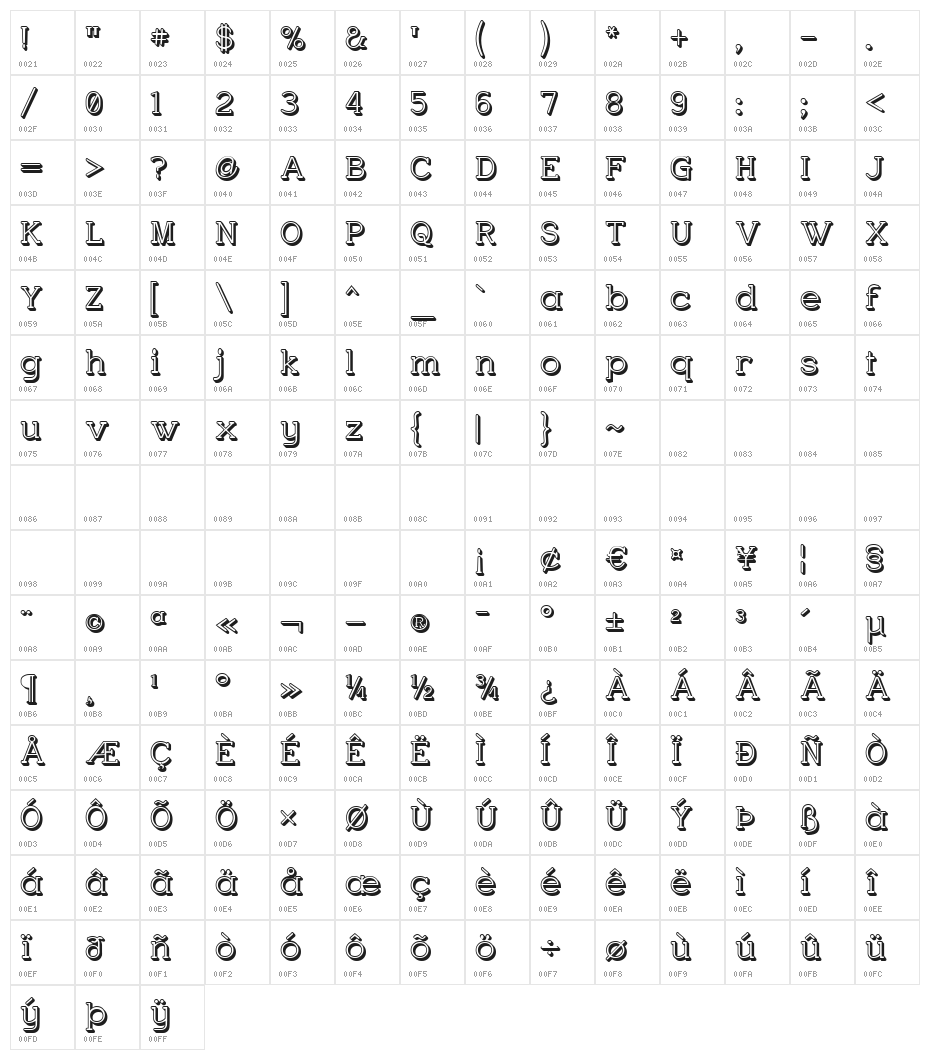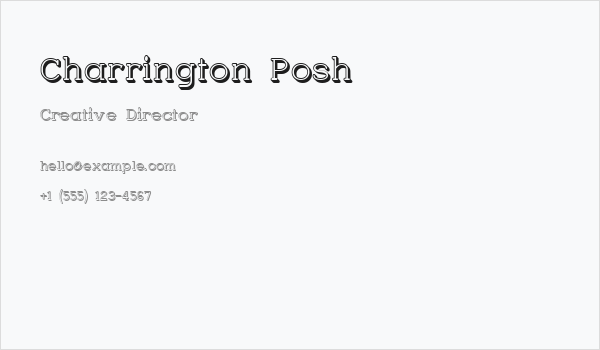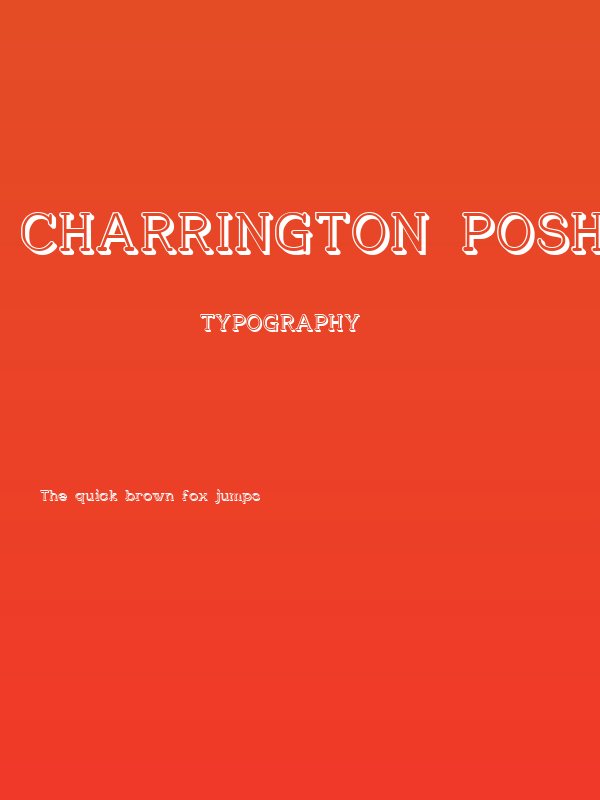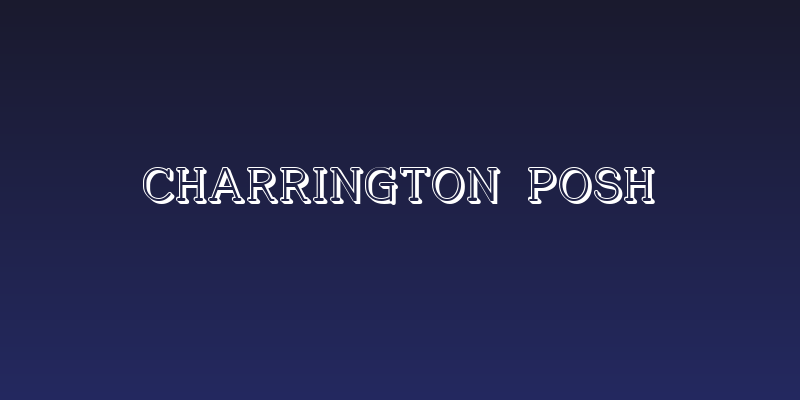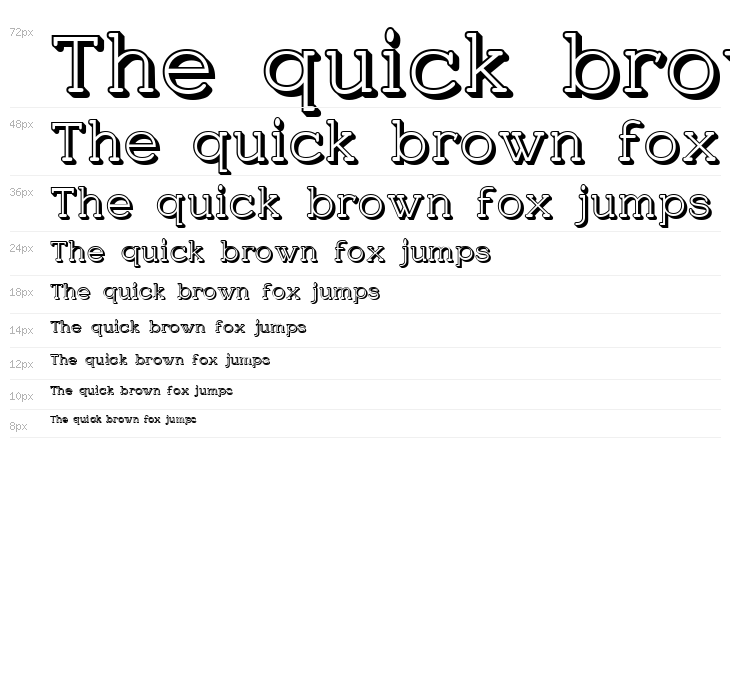
Charrington Posh Font
Charrington Posh Description
This font features a bold, outlined style with a distinct shadow effect that gives it a three-dimensional appearance. The uppercase and lowercase letters maintain a consistent width, creating a uniform look. The numerals and special characters follow the same design, ensuring cohesion across all glyphs. The font's strong presence makes it ideal for attention-grabbing designs. Its decorative nature is balanced by a clean, structured form, making it versatile for various applications. The font's unique style is both modern and playful, suitable for projects that require a bold statement.
| Proposed Projects | Ideal for posters, headlines, logos, and branding materials that require a strong visual impact. |